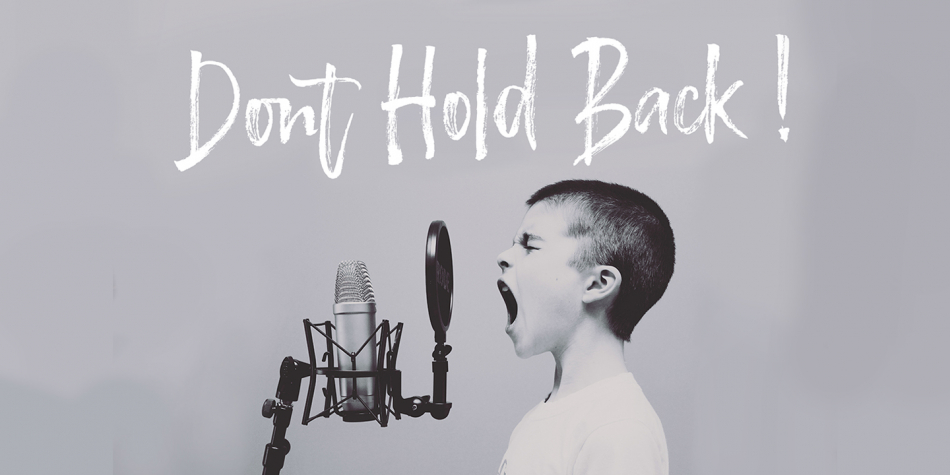
Brestonk is a multiple classification font family. This typeface has two styles and was published by Dhan Studio.
Brestonk Brush is a new font with textured stroke detail. The font includes some ligatures as well as extra swashes in a separate font. This family is perfect for project posters, logos, product packaging, invitations, greeting cards, brands, news, blogs, everything including personal charm etc.